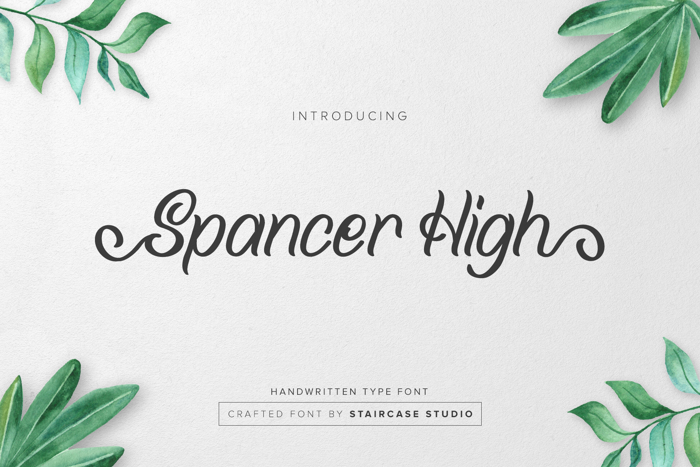
Spancer High Font
Spancer High with handwritten type font. A collection of letters and numbers suitable your projects also great for Logotype, Branding Design, Logo Design, Digital Lettering Arts, T-Shirt/Apparel, Poster, Magazine, Signs, Advertising Design, and any design needs.